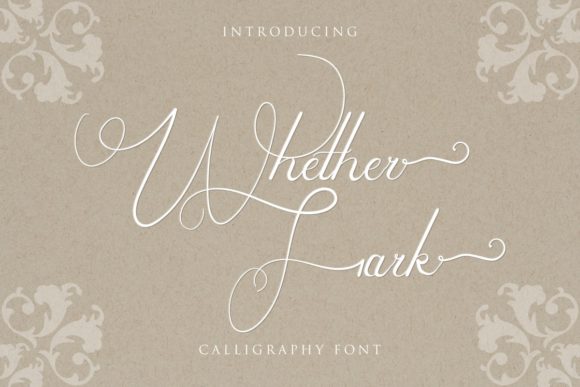
Behold the Whether Fark Font, a script font that's a feast for the eyes! Its stunning character set and masterfully crafted spacing will elevate your designs with a touch of elegance and sophistication. Whether you're creating captivating logos or crafting eye-catching headlines, this font is your ticket to leaving a lasting impression.
Dive into the world of visual intrigue with Whether Fark, where each letter dances across your screen with grace and charm. Its carefully curated kerning ensures harmony and balance in every word, lending an air of professionalism to your projects. Prepare to captivate your audience, evoke emotions, and leave them utterly enthralled with your designs.
Unleash your creativity and explore the boundless possibilities that Whether Fark offers. Whether you're a seasoned designer seeking to add a unique touch to your work or a budding artist yearning for a font that reflects your personal style, Whether Fark stands ready to ignite your imagination and fuel your artistic journey.
Beyond its visual appeal, Whether Fark is also a remarkably versatile font. Its ability to adapt seamlessly to a wide range of design projects makes it an invaluable asset to any creative arsenal. From logos that command attention to social media posts that pop, Whether Fark effortlessly elevates your content, transforming it into an unforgettable visual experience.